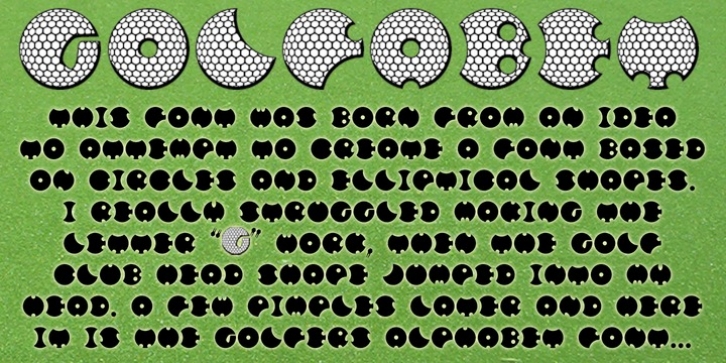
GOLFABET was designed by Owen Dawson and published by SpideRaYsfoNtS. GOLFABET contains 1 style.
This font was born from an idea to attempt to create a font based on circles and elliptical shapes. I really struggled making the letter "G" work, then the golf club head shape jumped into my head. A few pimples later and here it is: the Golfers Alphabet font... GOLFABET